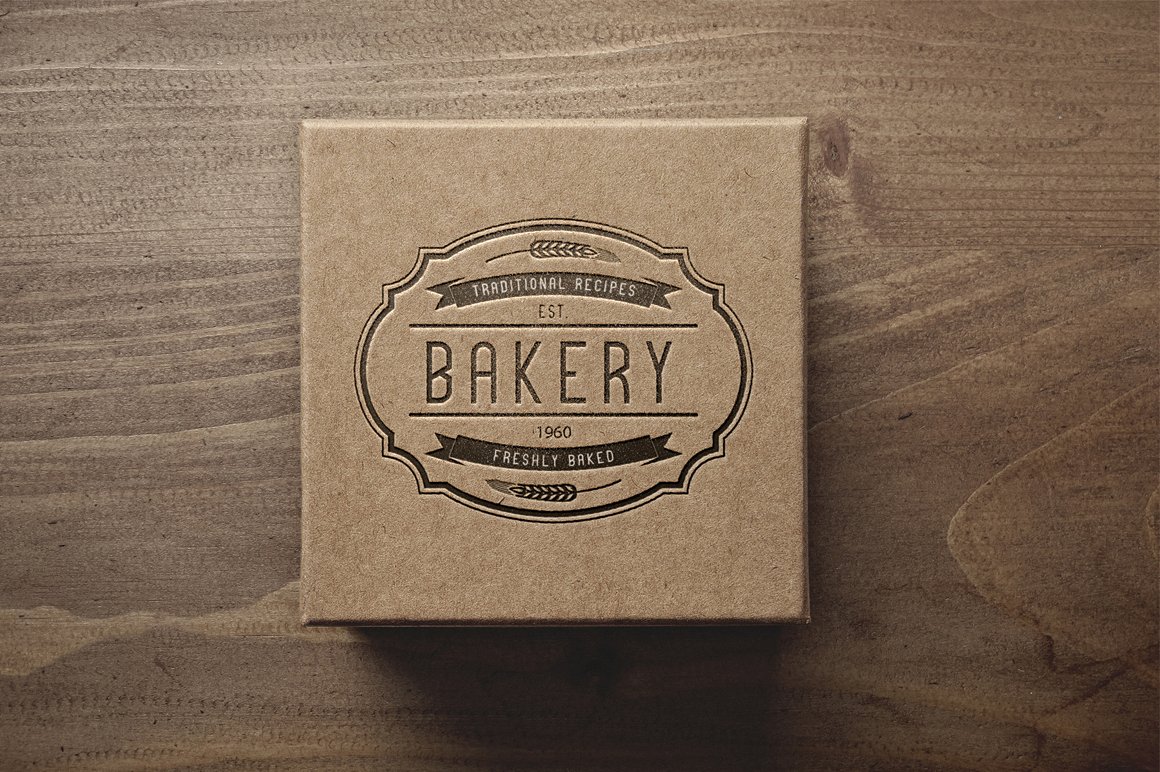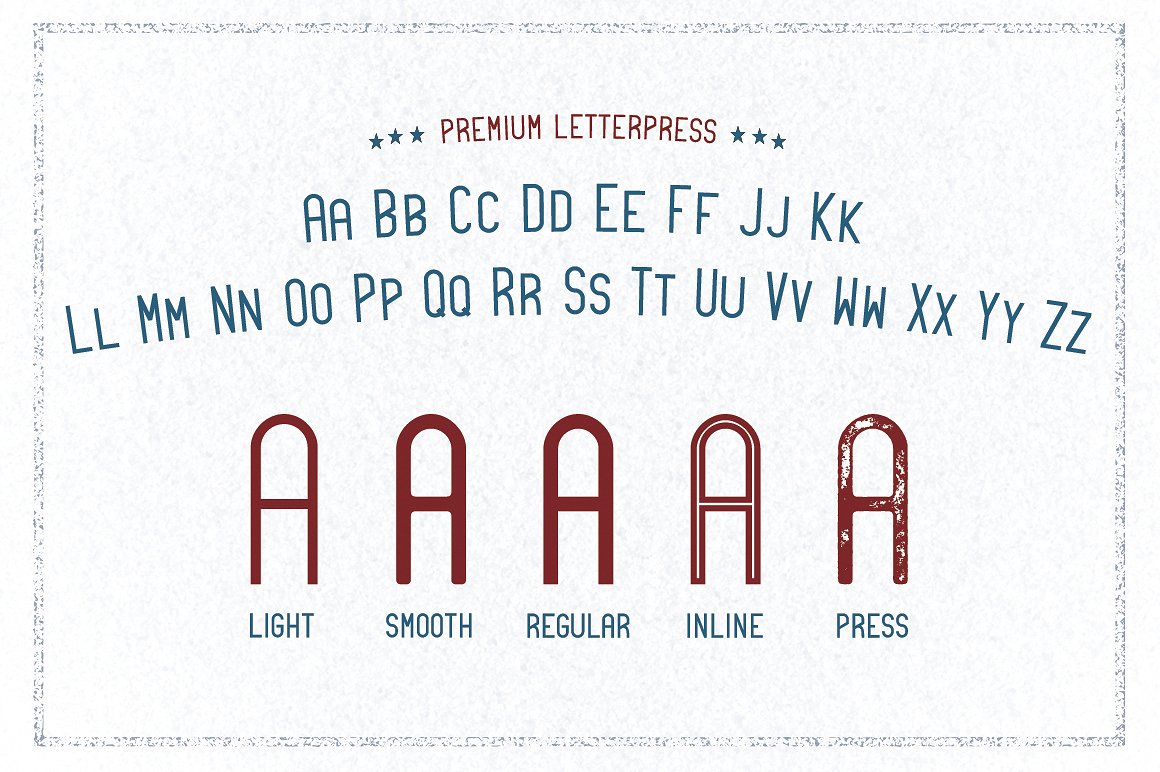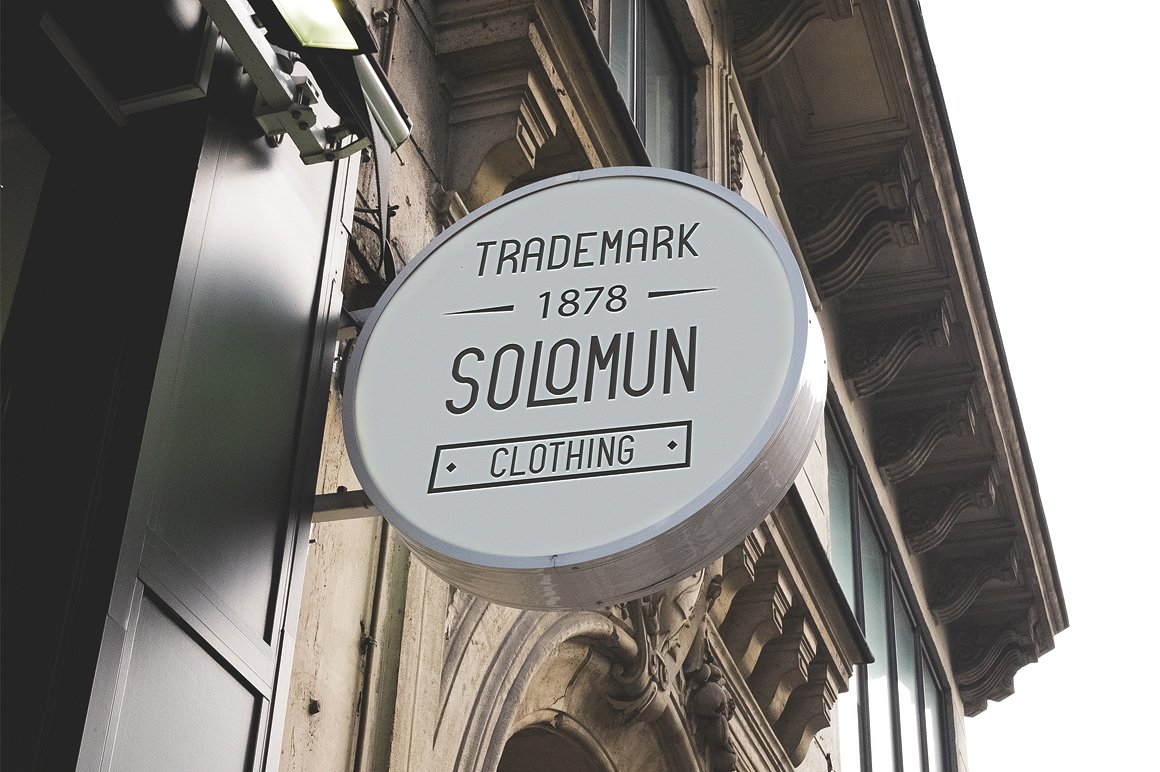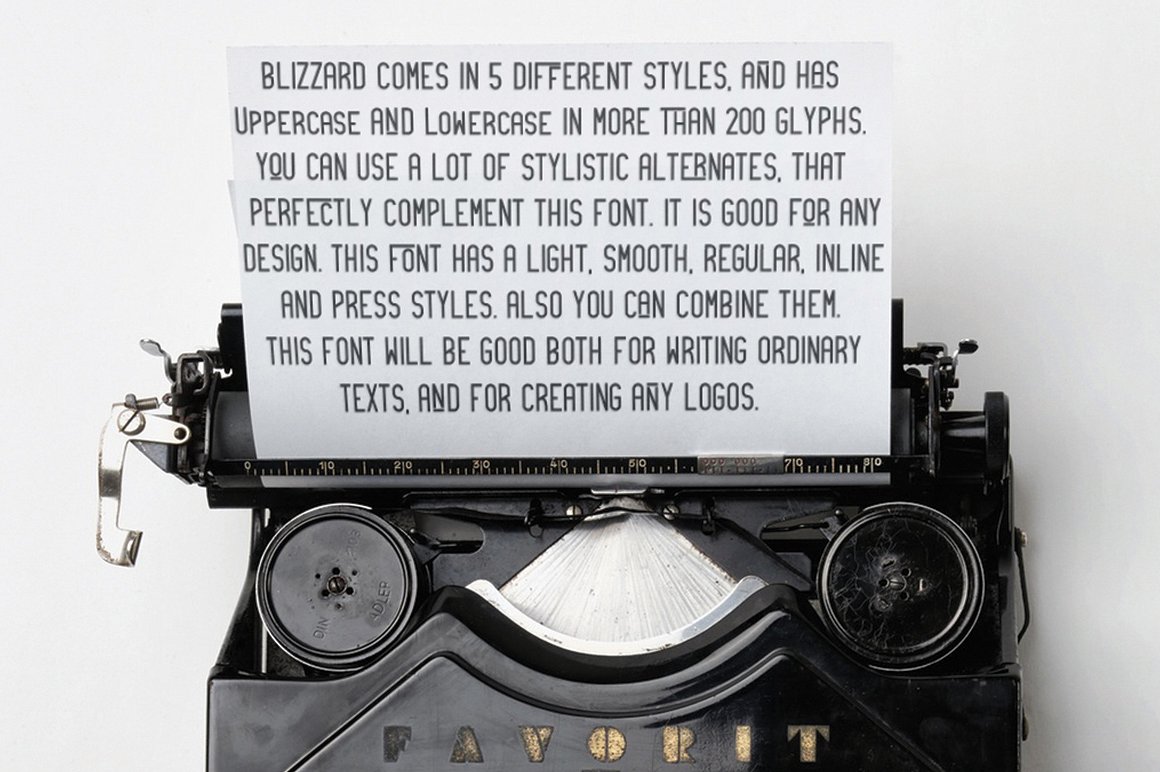
The Blizzard Font: A Versatile and Stylish Addition to Your Design Toolkit
Ah, the elusive perfect font. We’ve all been there – stuck in the middle of a project, pouring over font options, and still can’t seem to find the one that fits just right. I recall a particularly frustrating experience with a client who wanted a font that was both elegant and edgy for their new brand identity. After hours of searching, I stumbled upon the Blizzard font, and it was love at first sight! With its 5 different styles, extensive glyph library, and range of stylistic alternates, I knew I had found the perfect fit.
- ✨ Variety of styles: Blizzard comes in 5 different styles – Regular, Light, Smooth, Inline, and Press – making it easy to find the perfect fit for your design.
- ✅ Extensive glyph library: With over 200 glyphs, including uppercase and lowercase characters, you’ll have plenty of options to experiment with.
- 🌈 Stylistic alternates: The font’s range of stylistic alternates allows for endless creativity and customization.
While Blizzard is an excellent font, there are a few minor quirks to be aware of:
- 🤔 Occasional kerning issues: As with any font, you may encounter some kerning issues, particularly when using certain character combinations.
- ⚠️ Not ideal for body text: Due to its decorative nature, Blizzard may not be the best choice for lengthy body text.
The Story Behind Blizzard
Blizzard was designed with versatility in mind. Its creator aimed to craft a font that could seamlessly transition between different design contexts, from elegant wedding invitations to bold advertising campaigns. The result is a font family that is both stylish and highly adaptable.
Q: What is the best way to use Blizzard for branding?
A: Blizzard works best for branding when used consistently across all materials. Choose one or two styles that fit your brand’s personality and use them across your website, social media, and marketing materials.
Q: Can I use Blizzard for body text?
A: While Blizzard is not ideal for lengthy body text, it can be used for shorter paragraphs or captions. However, for extended reading, a more traditional serif or sans-serif font may be more suitable.
Q: Is Blizzard suitable for web design?
A: Yes, Blizzard can be used for web design. Its clean lines and elegant style make it a great choice for headings, titles, and short paragraphs.
Q: Can I combine different Blizzard styles?
A: Absolutely! Blizzard’s different styles are designed to complement each other. Feel free to mix and match styles to create visual interest and hierarchy in your design.